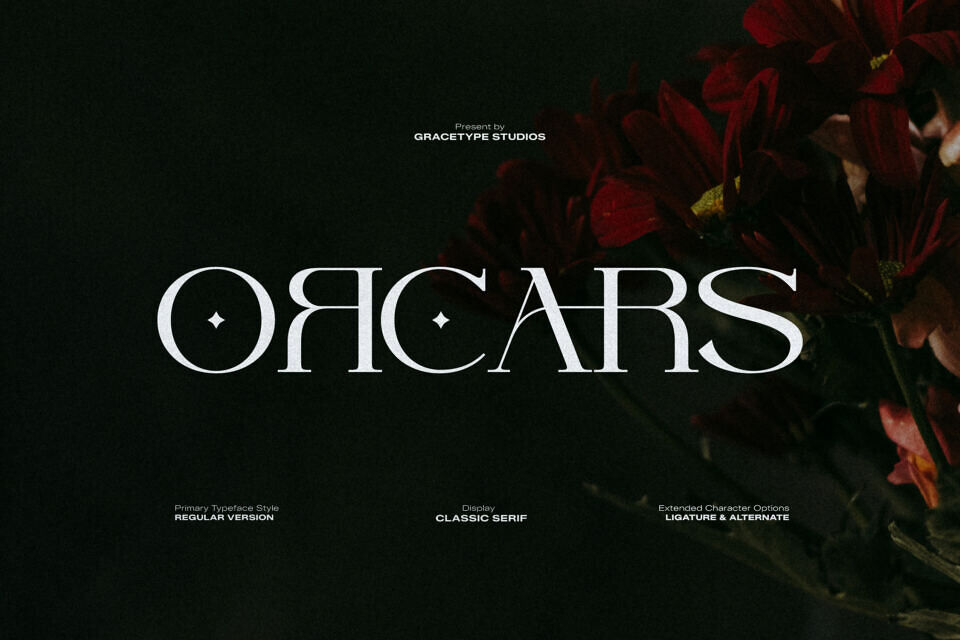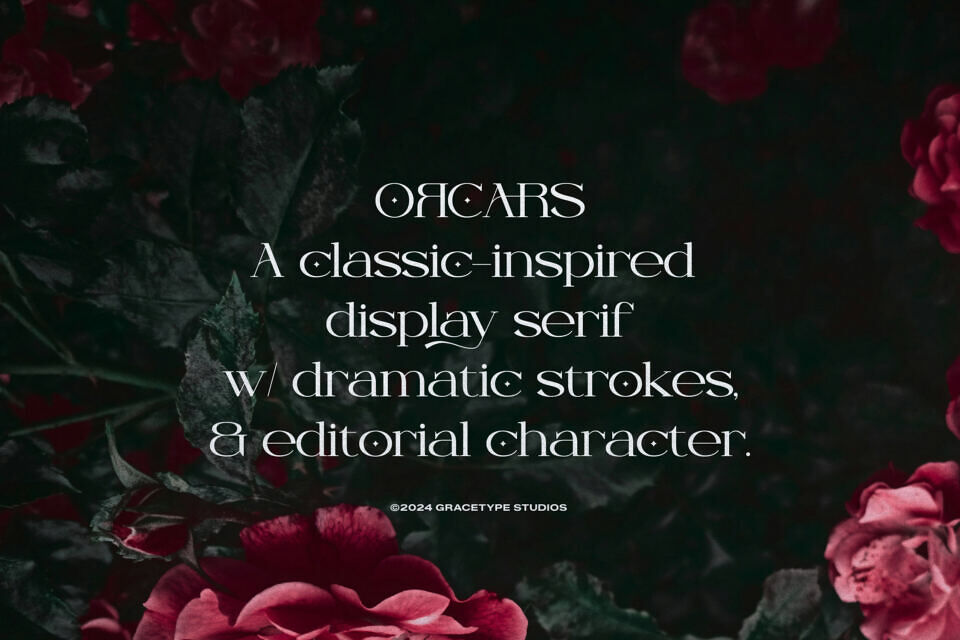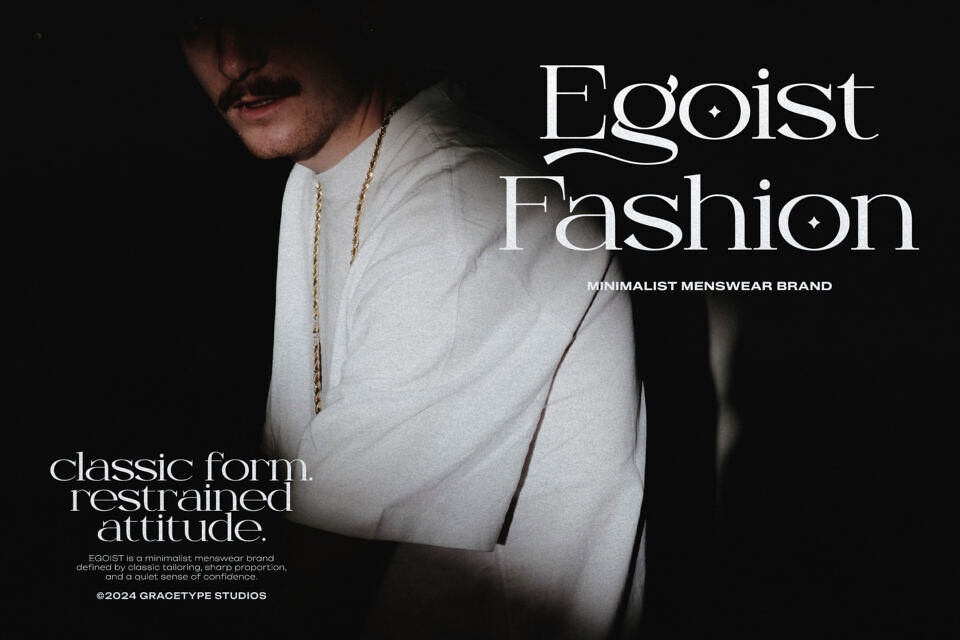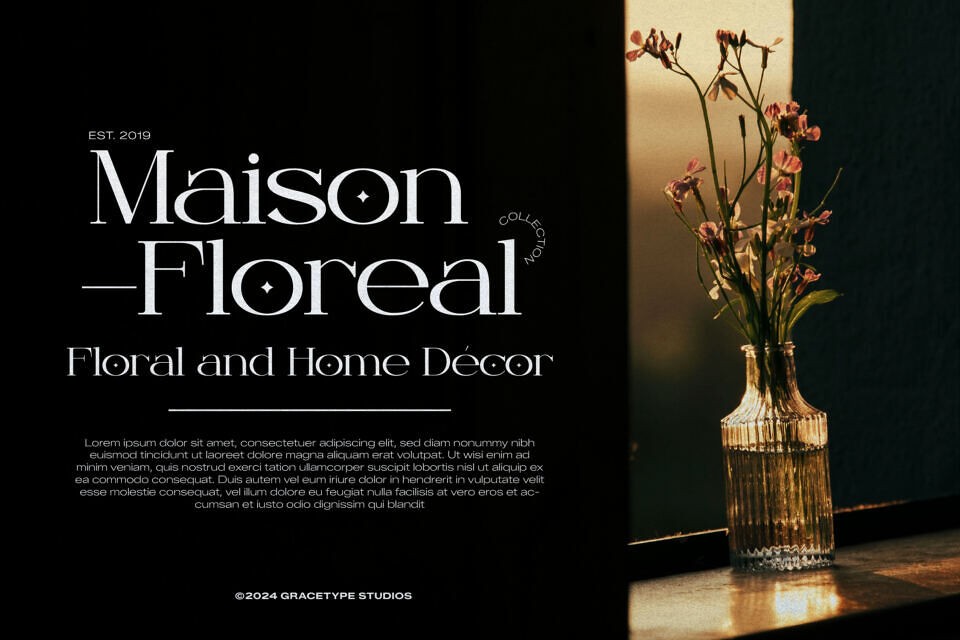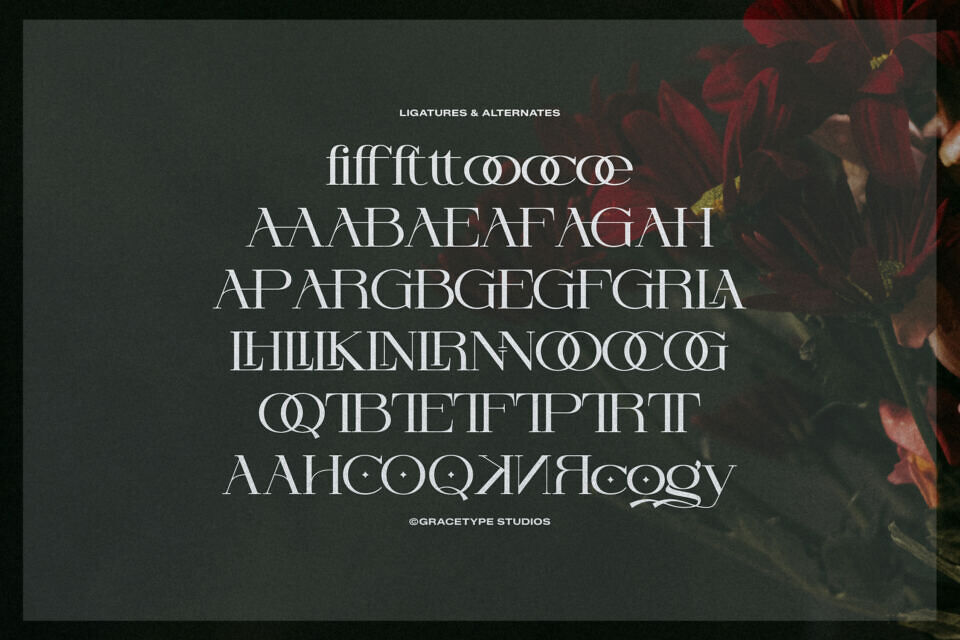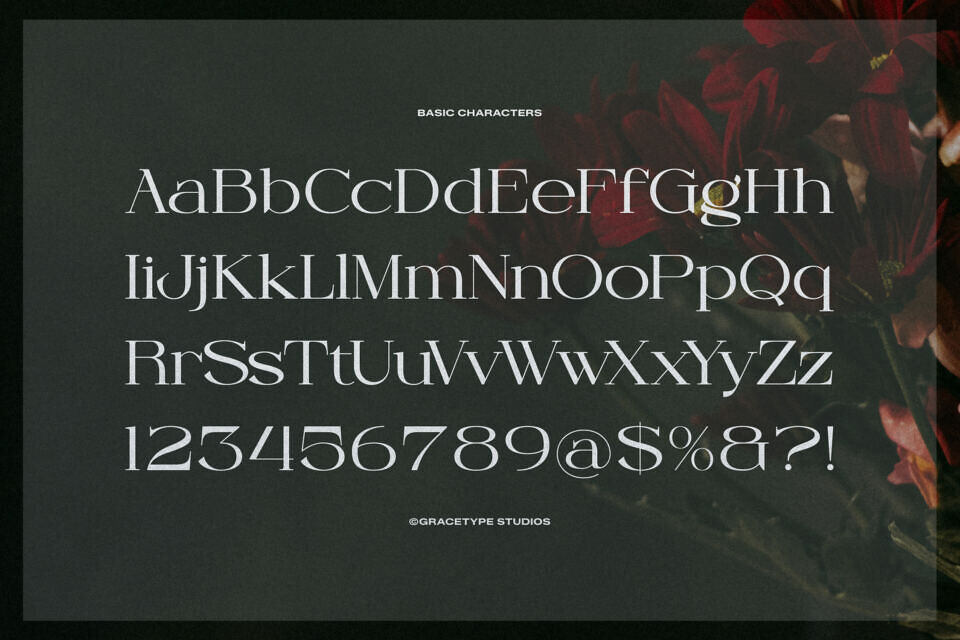
Orcars is a breathtaking classic serif that reimagines luxury through a celestial lens. It features high-contrast strokes and unique, star-like diamond counters in the letterforms, creating a mystical yet high-fashion aesthetic. The Orcars typeface is a display powerhouse, perfect for premium branding where “standard” just won’t do.
Elevate your editorial layouts or perfume packaging with the Orcars font, which brings an avant-garde edge to traditional Roman proportions. This Orcars typeface includes beautiful ligatures and alternates that allow you to customize headlines for a truly bespoke look.